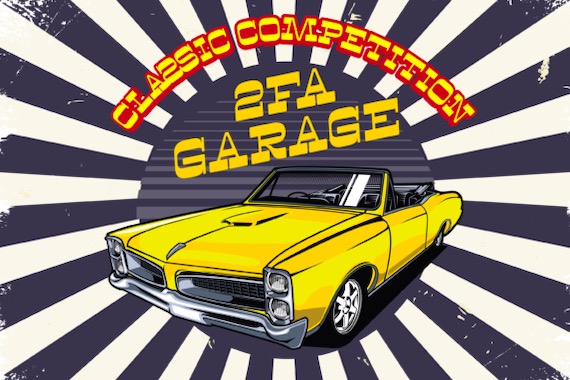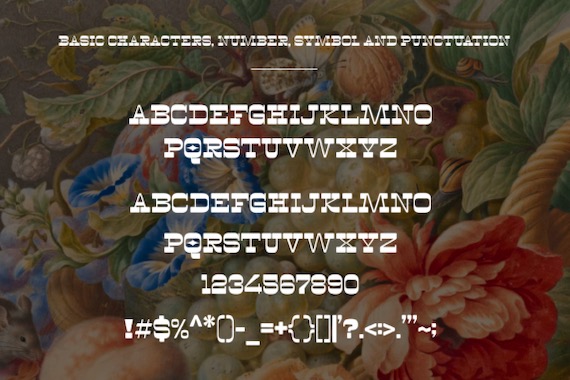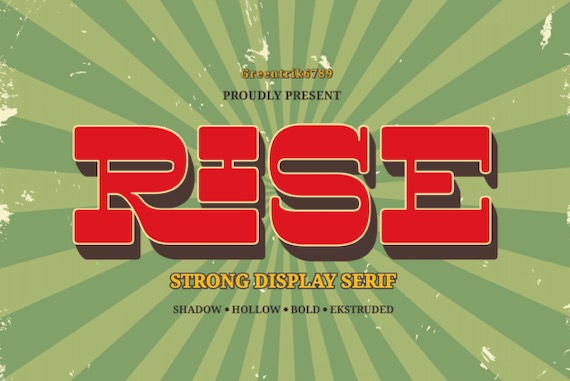
Rise is a vintage and powerful display font that was created and published by Greentrik6789 along with reverse contrast so it grabs a lot of attention in the crowd. This Serif font will be very suitable for marketing design needs such as posters, flyers, advertisements, labels, book covers, film titles, and more.
Rise Display Serif Font
Publisher: Greentrik6789